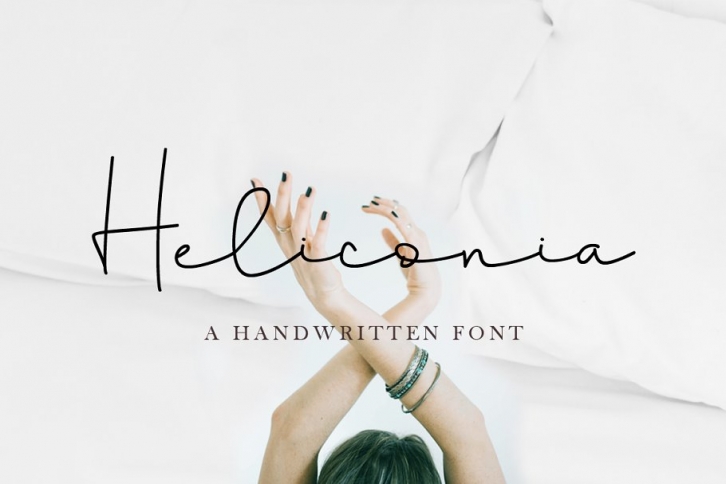
Heliconia Script Font is a modern and elegant style handwritten font. It contains uppercase, lowercase, number, punctuation and symbols. Heliconia is perfect for branding, logos, wedding designs, greeting cards, photography, inspirational quotes, illustration, magazine, advertisements, invitations, product designs, labels, promotional material, handwritten quotes, product packaging, stationery, social media posts, invitation, and more.